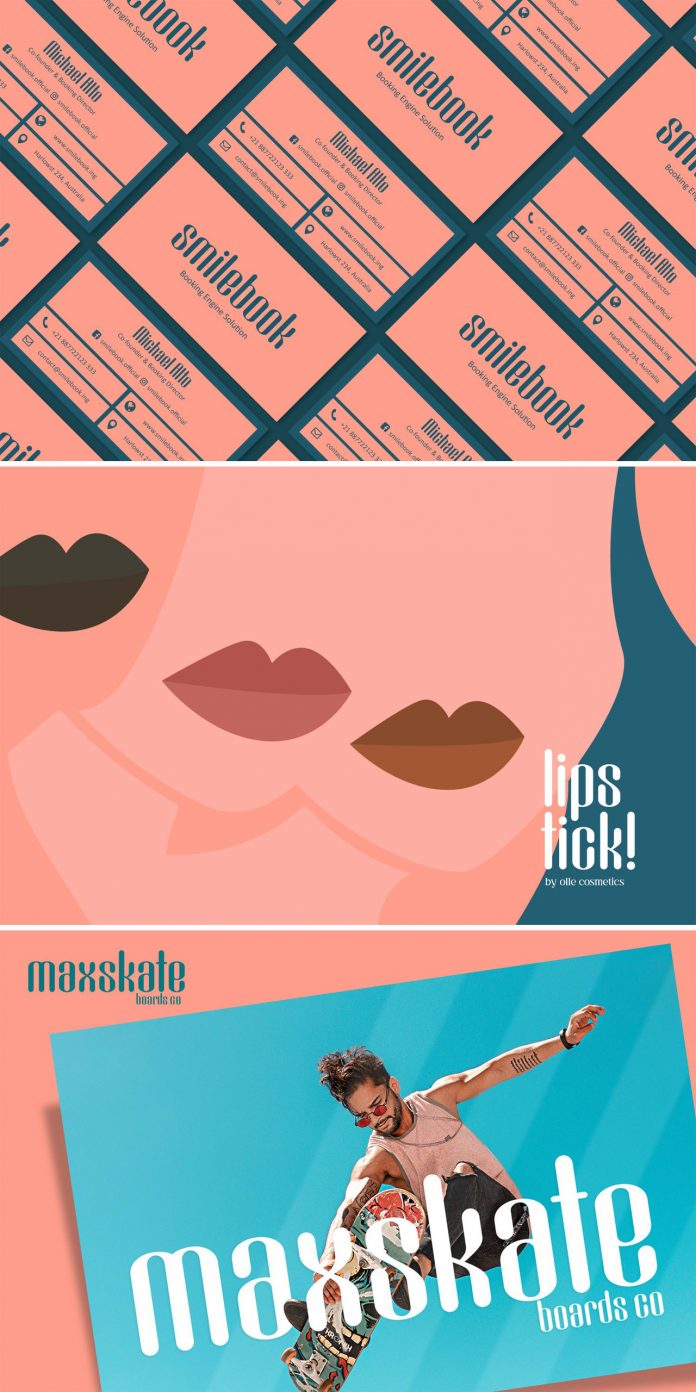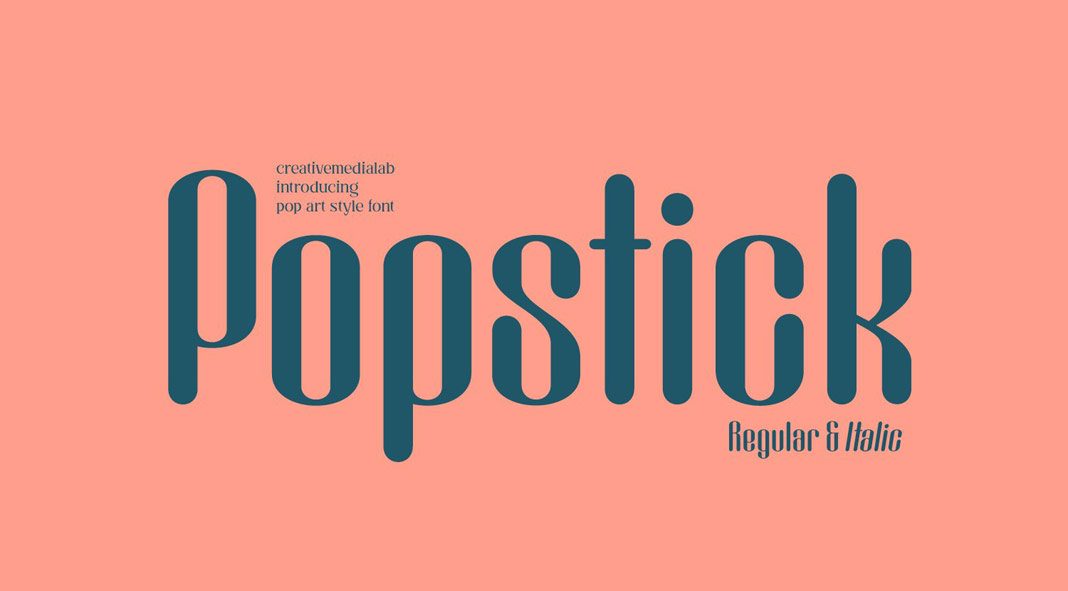
Popstick, a unique sans-serif font with smooth rounded edges from Creative Media Lab.
The Popstick font is a simple and cool pop art typeface for all your graphic design projects that require something with a unique and unconventional look. Published by the team of Creative Media Lab, the font combines a modern, clean touch with round edges, which gives the typeface also a nice vintage feel. Popstick is well suited for a variety of commercial work including editorial designs, advertising, apps, sports branding, packaging design, logos, website headers, branding, and many more graphic design projects. To learn more, just click on the following link.